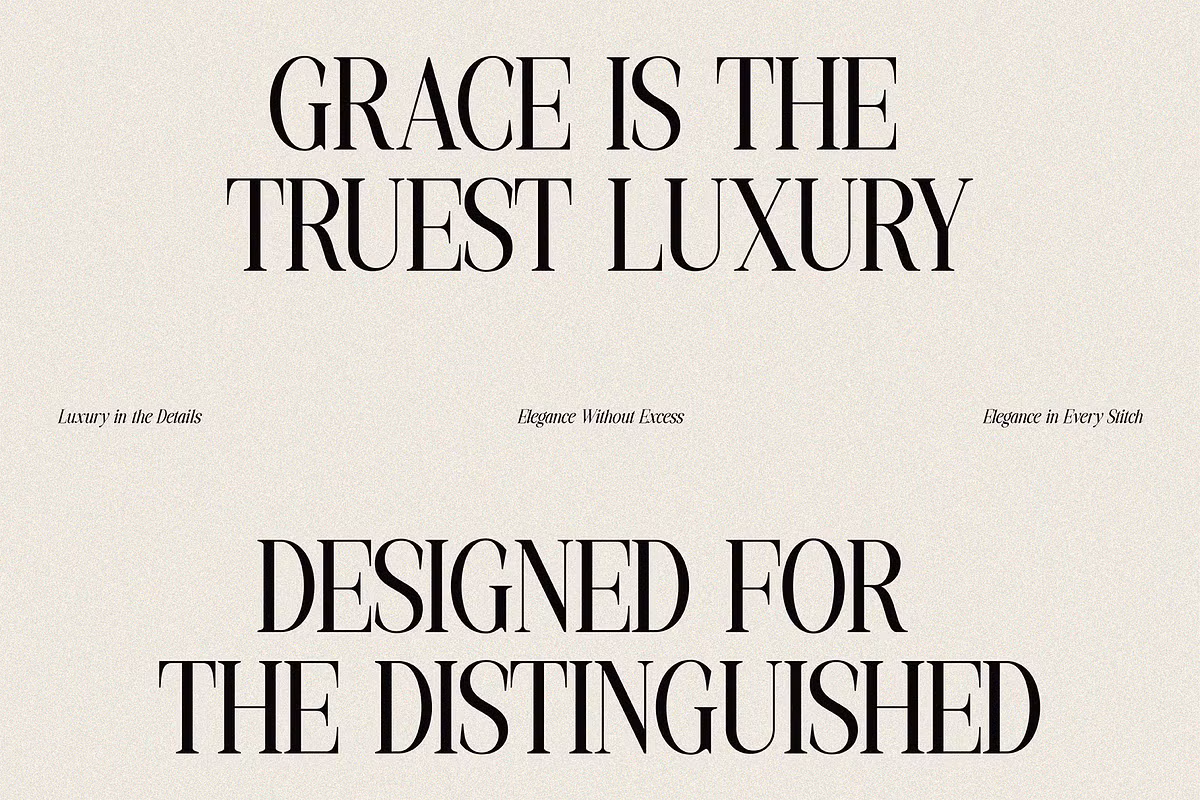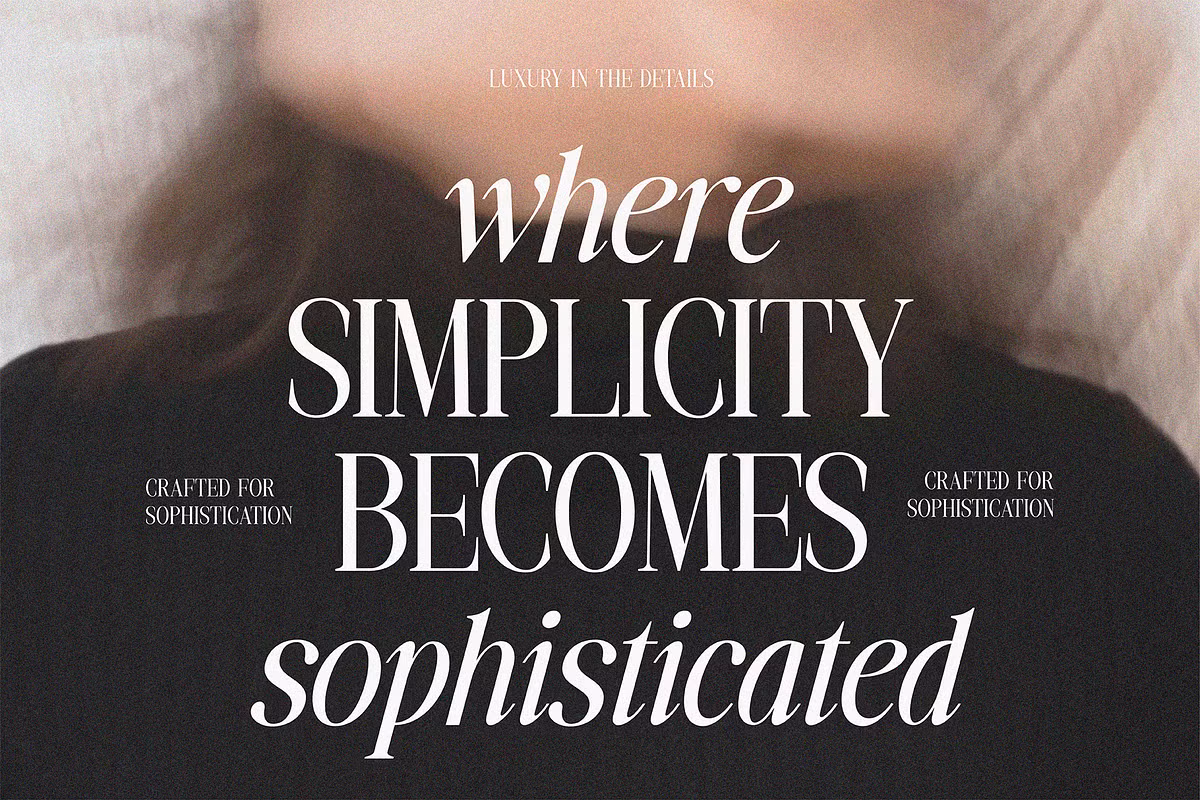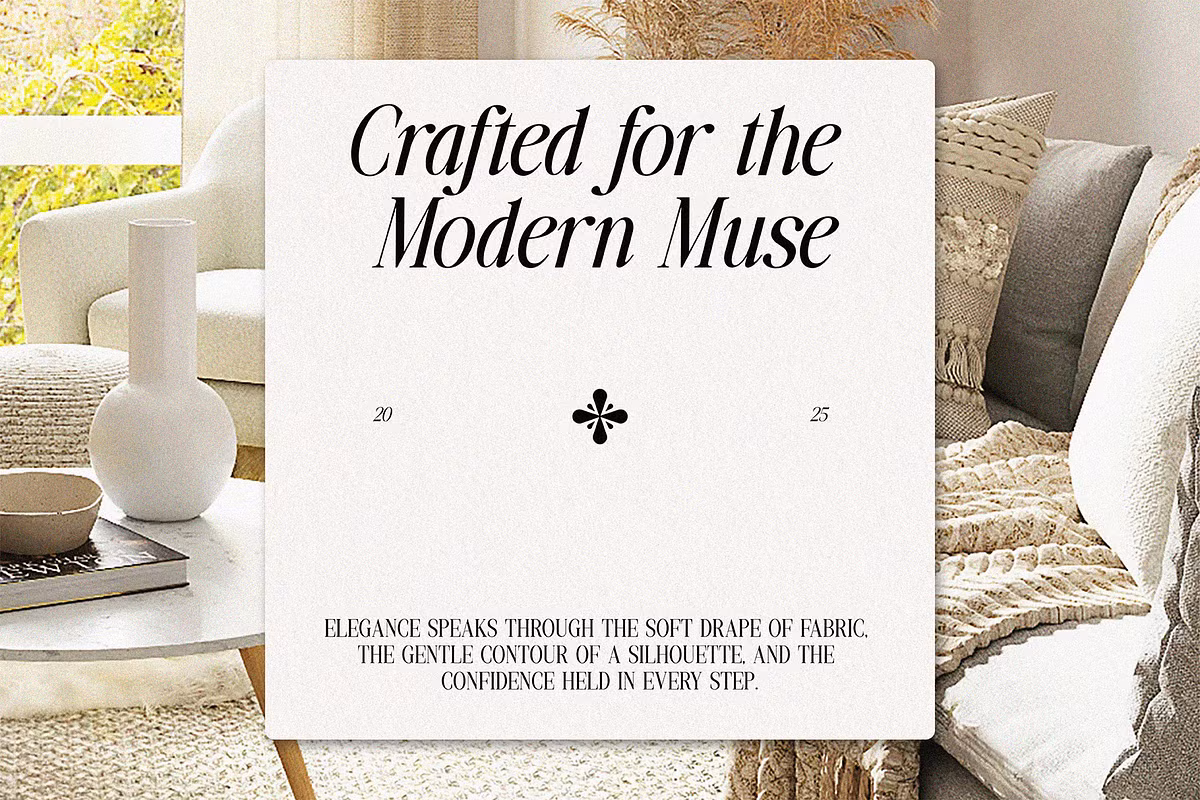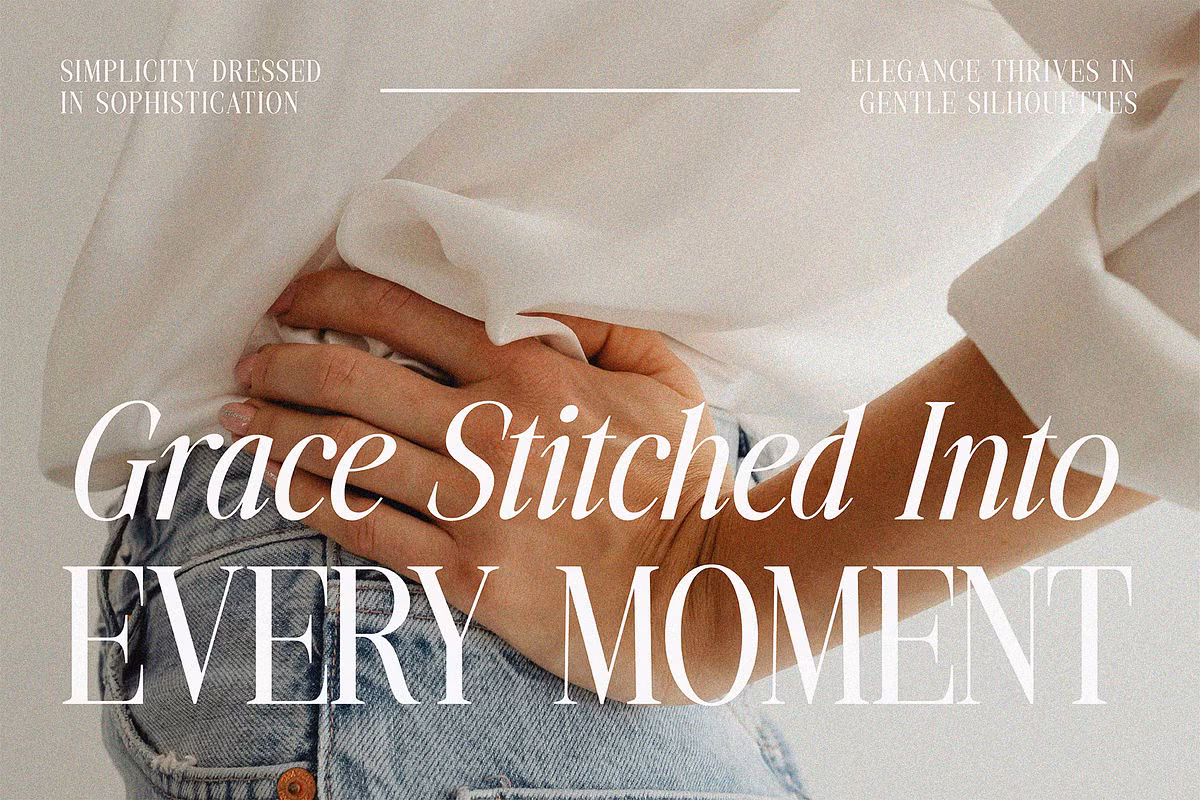
Monarch Heritage: Elegant Serif Typeface for Luxury Branding
Monarch Heritage is a really beautiful font with classic lines and fancy details. It’s perfect for making things look high-end and fancy. This font is great for designers who want to add a touch of luxury to their work, like magazine titles or branding for fancy products. What makes it special is that it has two styles, Regular and Italic, which gives you a lot of options for creating a unique look. Whether you’re working on a magazine, a brand’s image, or packaging for a luxury product, Monarch Heritage is a great choice because it’s elegant, timeless, and sophisticated. It’s like the perfect accessory to make your design stand out and look really expensive. With its beautiful curves and refined contrast, this font is sure to elevate your visual storytelling and make it look amazing.
Design Style of Monarch Heritage
The Monarch Heritage style is really something special – it’s got a classic feel to it, but it’s also totally modern. The letters are designed to be super elegant and catch your eye, but they’re still easy to read. This makes it perfect for things like editing and branding. The curves on the letters are smooth and flowing, which gives it a sophisticated and luxurious look. It’s a great choice if you want something that’s going to make a statement. The way the letters are shaped is really refined and has a nice contrast to it, which helps it stand out. Overall, the Monarch Heritage style is a great mix of old and new, and it’s definitely a popular choice for people who want their brand to look high-end.
What makes Monarch Heritage really special is how the letters fit together perfectly and the proportions are just right. This means the typeface looks great and works well in all sorts of situations – whether it’s big and bold or small and subtle. You can use it for headings that grab your attention or for smaller text that still needs to be easy to read, and it always looks classy and clear.
Character Sets and Styles
Monarch Heritage comes in two distinctive styles: Regular and Italic. Each style is designed to complement the other, providing versatility for designers. The full character set includes a wide range of letters, numbers, and punctuation marks, ensuring that you can communicate effectively in any context.
Monarch Heritage is really good at helping businesses look great everywhere in the world. It can be used in many different languages, which makes it perfect for companies that want to be known globally. The special thing about Monarch Heritage is that it has a lot of different characters, so you can be very creative and make messages that lots of people will understand and like.
Use Cases for Monarch Heritage
The applications for Monarch Heritage are virtually limitless. Here are some of the most effective use cases:
- Magazine Covers & Editorial Layouts: The elegant serif styling is perfect for capturing attention on magazine covers, providing a sophisticated touch that enhances the overall design.
- Luxury Branding & Logo Design: Monarch Heritage’s refined aesthetics make it ideal for high-end branding projects, from logos to product packaging.
- Fashion Posters & Social Media Visuals: Use this typeface to create striking fashion posters that stand out on social media and other promotional platforms.
- Stylish Websites & Portfolios: Incorporate Monarch Heritage into your website or portfolio to convey a sense of luxury and professionalism.
- Wedding Invitations & Premium Stationery: The typeface adds an element of elegance to wedding invitations and premium stationery, making every detail memorable.
Pairing Suggestions for Monarch Heritage
When it comes to pairing Monarch Heritage with other typefaces, the key is to maintain balance and harmony in your designs. Here are a few pairing suggestions:
- Sans Serif Contrast: Pair Monarch Heritage with a clean sans serif typeface such as Montserrat or Open Sans for a modern touch that highlights the elegance of the serif.
- If you’re going for a classic look with serifs, try pairing Monarch Heritage with something a bit more low-key like Georgia or Merriweather. This combination gives you a pretty sophisticated feel that’s still easy on the eyes. You get the elegance of a serif-based design without it being too over-the-top. It’s a great way to add some visual interest to your text while keeping it readable.
- Display Fonts: For more creative designs, try pairing Monarch Heritage with display fonts that have unique characteristics to create visual interest, such as Playfair Display or Abril Fatface.
Monarch Heritage is not just a pretty face, it’s a way to add some serious class to your designs. This typeface is all about elegance and sophistication, making it perfect for high-end projects that need a touch of luxury. With its smooth curves and refined contrast, Monarch Heritage is like the fancy car of fonts – it’s sleek, it’s stylish, and it’s sure to turn heads. Whether you’re designing a magazine cover, a luxury logo, or just a fancy wedding invite, this typeface is the perfect way to add a bit of classic modern flair. So why settle for boring old fonts when you can use Monarch Heritage to tell a story of luxury and refinement? It’s time to elevate your designs and make them truly unforgettable.